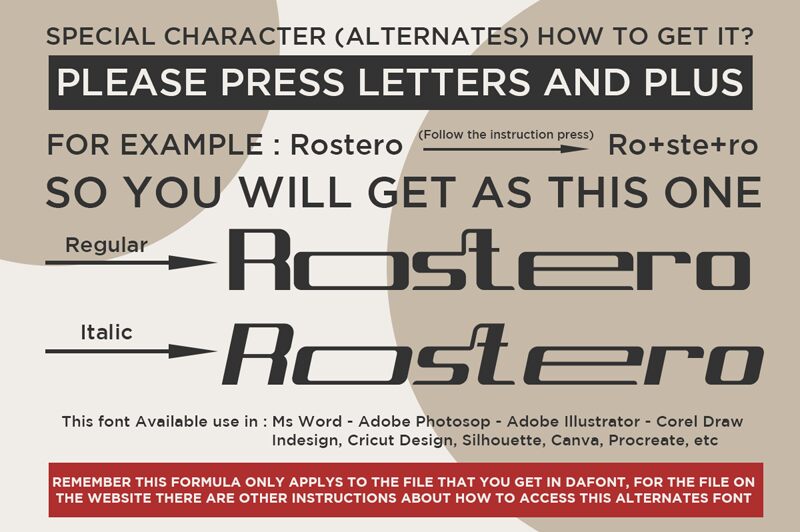
Rostero
Rostero, the captivating sans-serif font crafted by Absonstype Studio, exudes a dynamic and expanded presence. Its bold, distinctive letterforms evoke a sense of confidence and modernity, making it a standout choice for branding, headlines, and eye-catching displays. The font's clean lines and balanced proportions lend it a timeless appeal, while its expanded width adds a touch of elegance and sophistication to any design.
This versatile font thrives in a variety of applications, from contemporary editorial layouts and impactful signage to sleek packaging and dynamic web interfaces. Its versatility allows designers to seamlessly integrate Rostero into projects that demand a strong, yet refined typographic presence, effortlessly elevating the overall aesthetic.